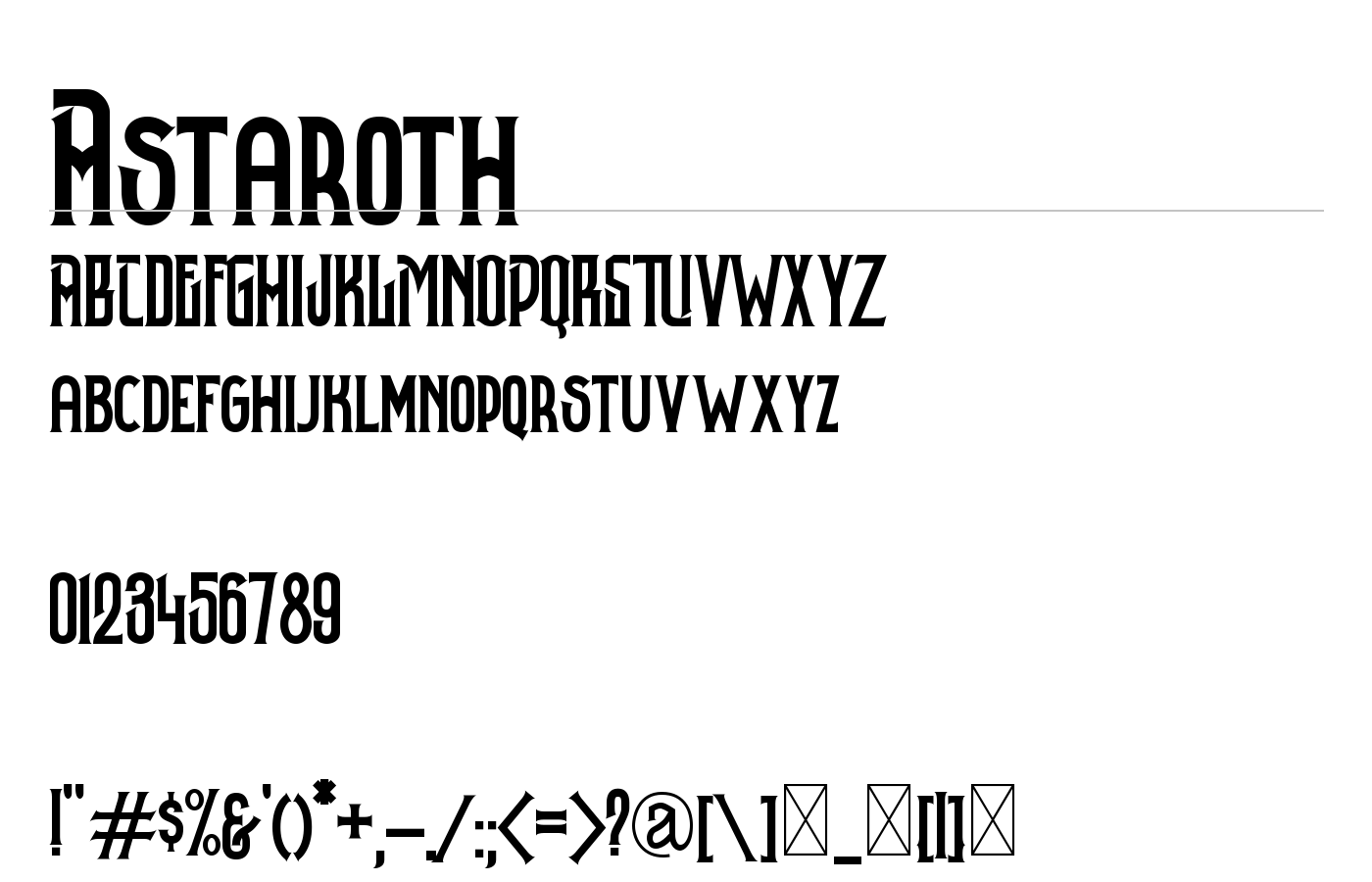
Astaroth is a bold, condensed serif font with a Gothic, vintage flair, characterized by high contrast between thick and thin strokes and sharp, ornamental serifs. Its tall, narrow letterforms and stylized details give it a dramatic, mysterious feel, perfect for creating striking headlines, logos, or branding that demands attention and evokes a sense of dark elegance. This font works best in display contexts where its unique personality can shine without sacrificing readability.
Astaroth Font
About Astaroth Font
| Font family | Astaroth Font |
| Designer | Typotopia |